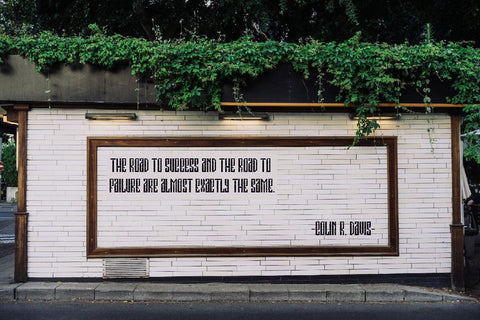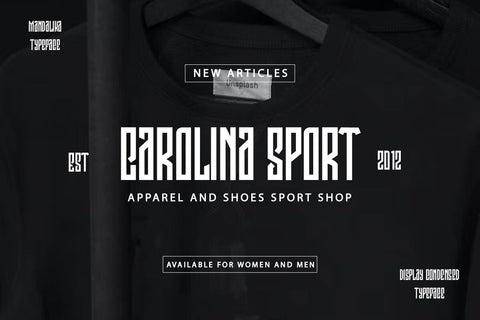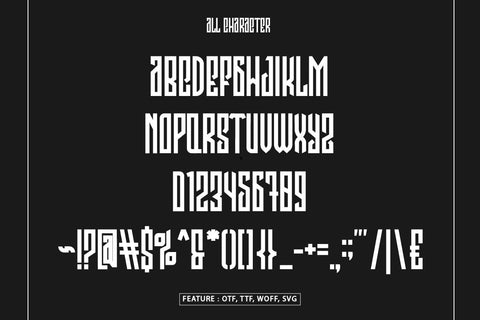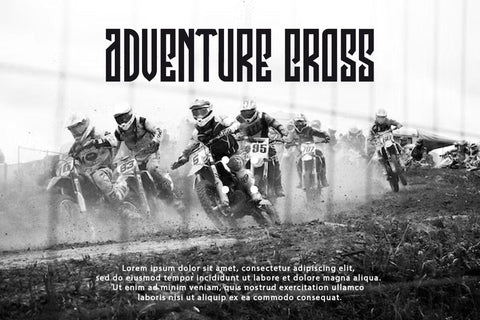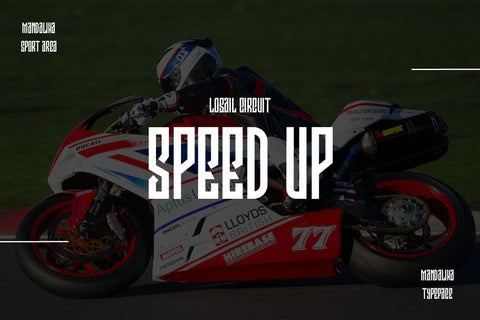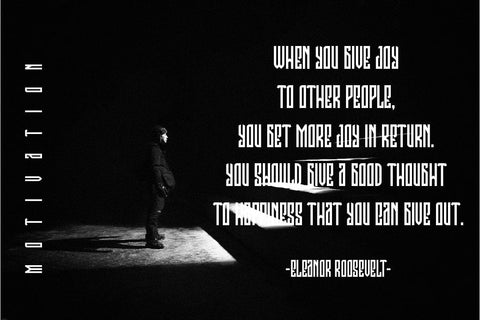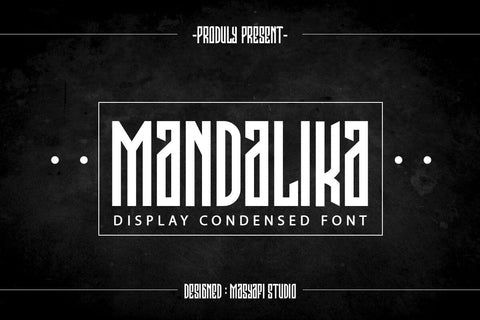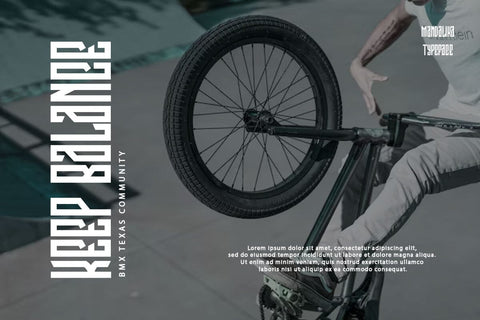
Mandalika - Display Condensed Font
Hi, Introducing Mandalika - Display Condensed Font
A Condensed Display Font font with a manly, vintage and gentle style. This font is cool for headlines, t-shirts, overlays, quotes, etc